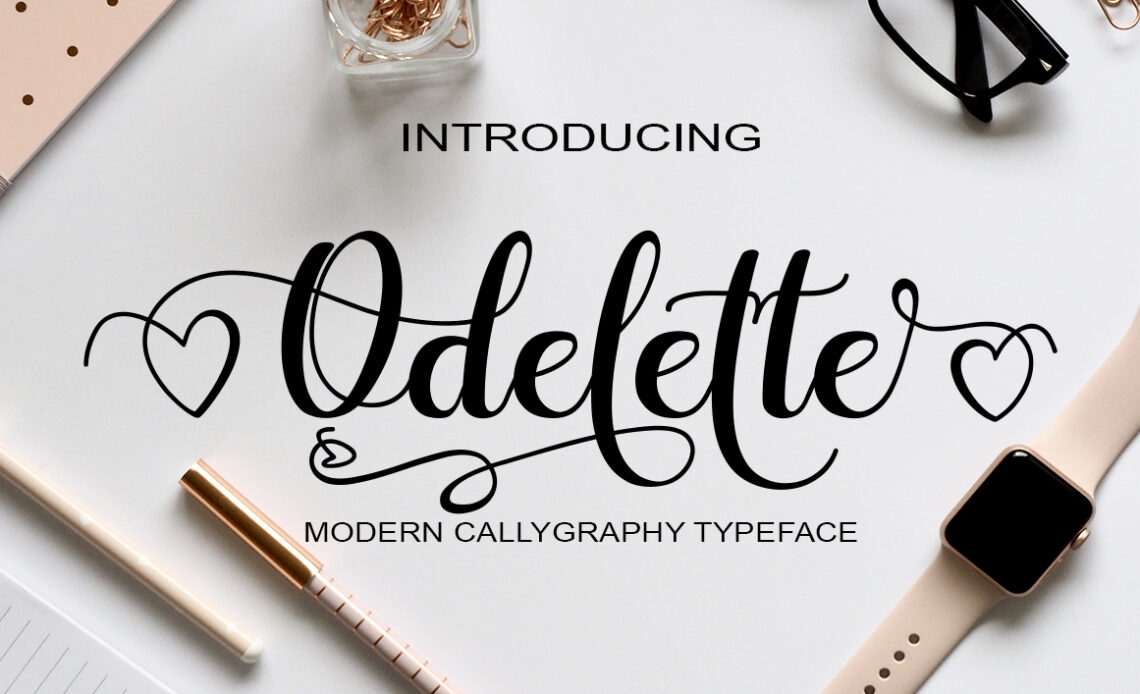
Behold! The Odelette Script Font: Where Elegance and Allure Meet
In the realm of digital artistry, where creativity flourishes and ideas take shape, allow us to introduce you to Odelette Script Font, a calligraphy-style typeface that will captivate your senses and transform your designs into masterpieces. With its delicate strokes and flowing lines, Odelette Script Font exudes an aura of femininity and charm, adding a touch of sophistication to any project it graces.
Crafted with meticulous attention to detail, Odelette Script Font is the brainchild of bbakey, a renowned font designer with an unwavering passion for creating typographic wonders. Inspired by the timeless elegance of classic calligraphy, Odelette Script Font captures the essence of handwritten artistry, bringing a unique and personal touch to your digital creations.
Unleash your imagination and let Odelette Script Font guide you on a creative journey. This versatile font family effortlessly adapts to a myriad of design styles, from whimsical invitations and heartfelt greetings to chic logos and captivating social media graphics. Its versatility knows no bounds, making it an indispensable tool for graphic designers, content creators, and anyone seeking to elevate their visual communication.
For those seeking a font that exudes elegance and charm, Odelette Script Font stands as the perfect choice. Its intricate details and sweeping flourishes add a touch of luxury and sophistication to any project, whether it's a wedding invitation, a fashion magazine spread, or an eye-catching poster. Let Odelette Script Font ignite your creativity and elevate your designs to new heights of beauty and distinction.
The Odelette Script Font family comes replete with a wealth of character alternates, empowering you to tailor your designs with endless possibilities. Experiment with different letter combinations, switch between swashes and alternates, and discover the perfect combination that resonates with your creative vision. With Odelette Script Font, the possibilities are boundless, and each design becomes a reflection of your unique style and personality.